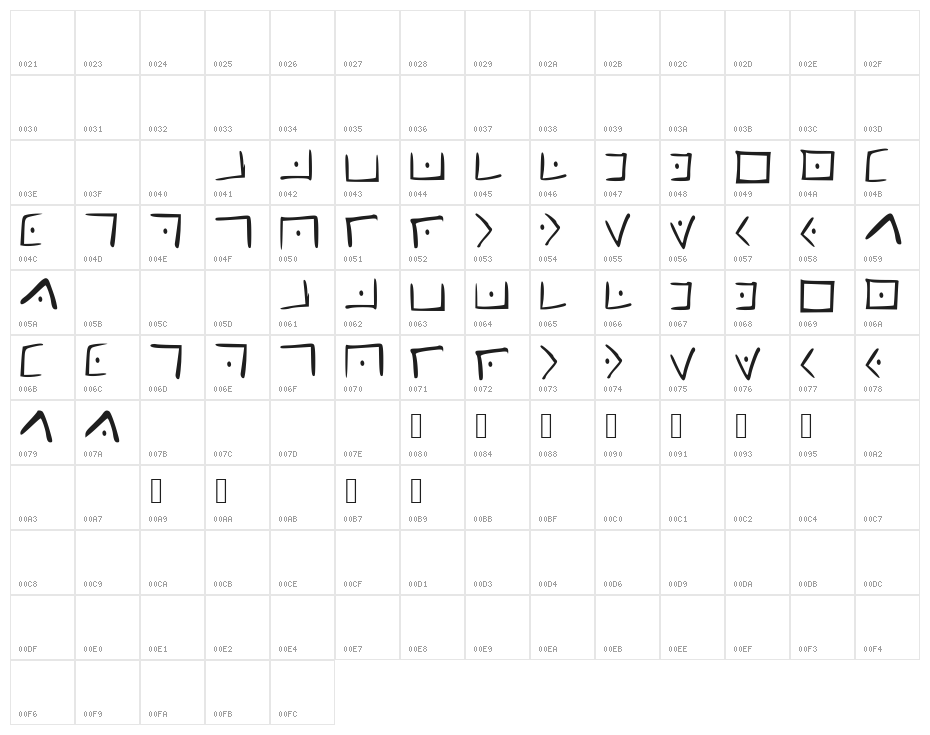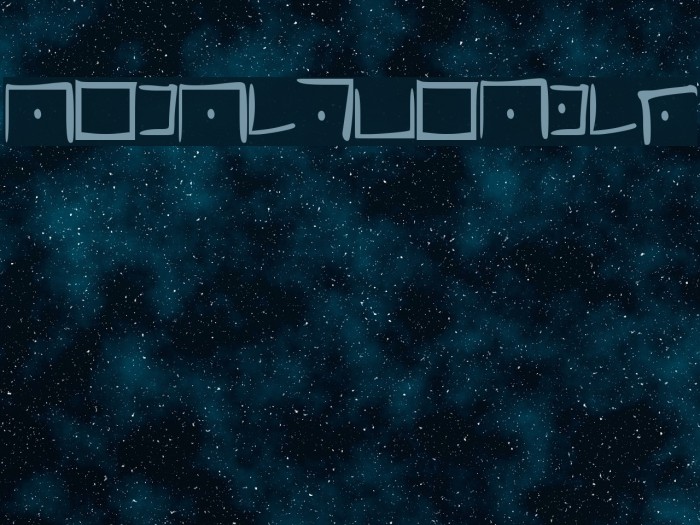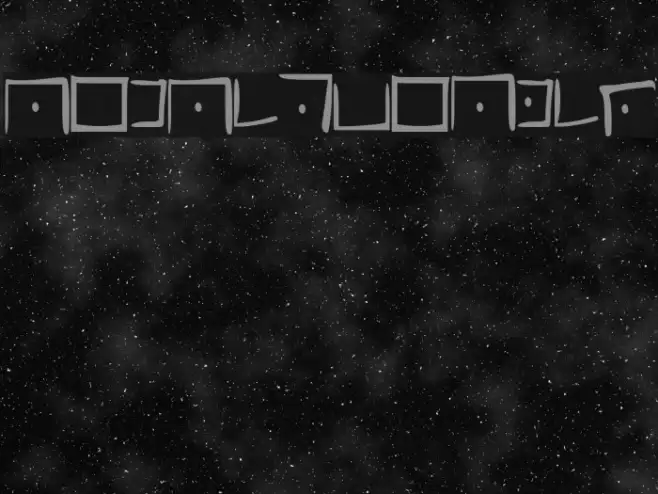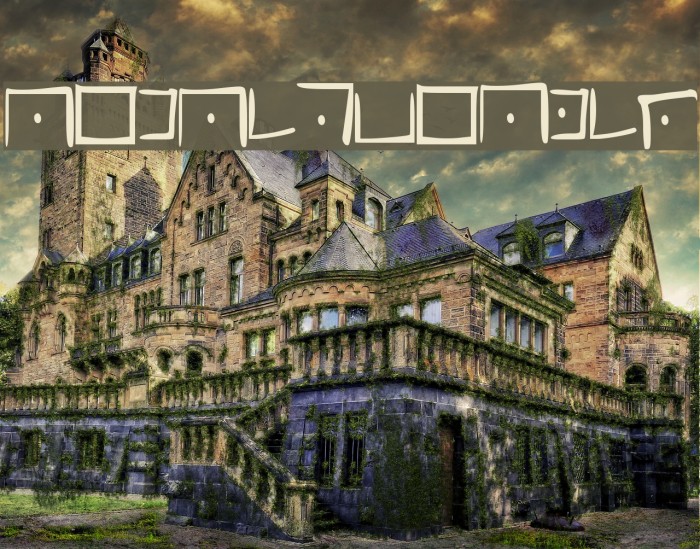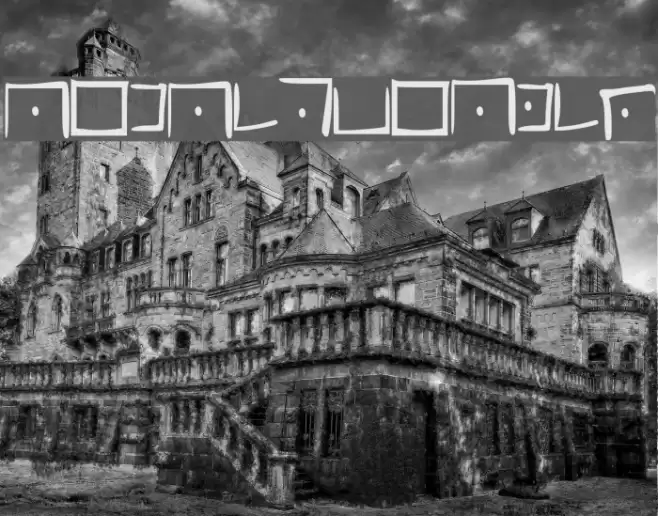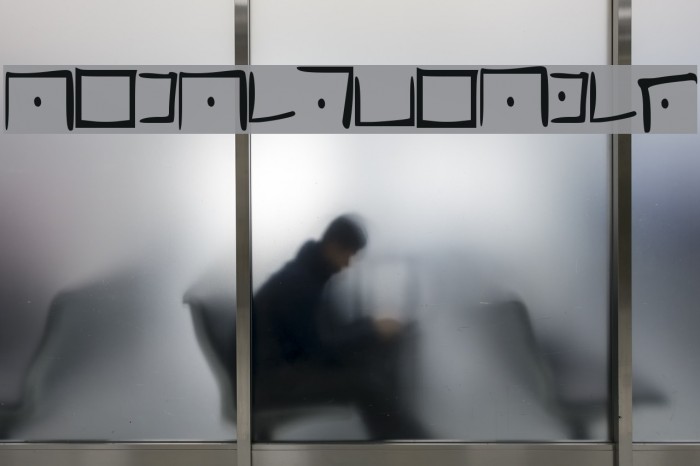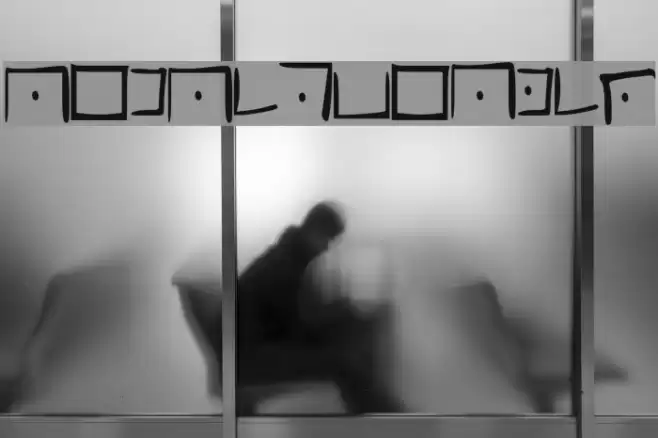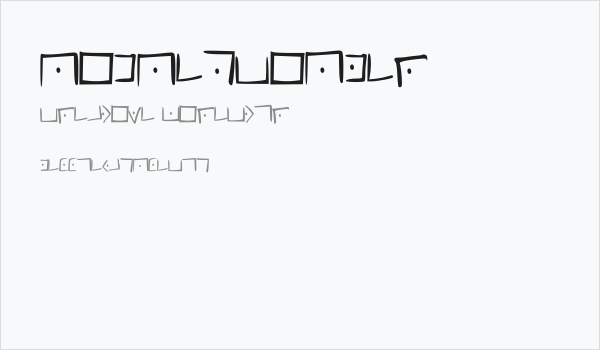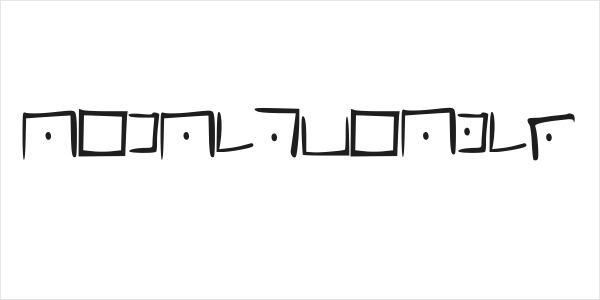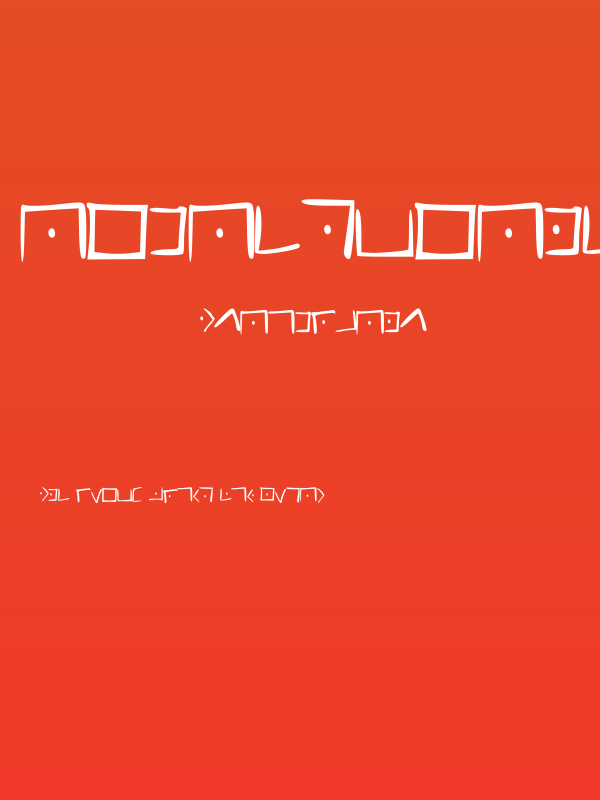
PigPenCipher Font
PigPenCipher Description
This is not a traditional font but a cipher system known as the Pigpen Cipher. It uses a set of symbols to represent letters, based on a grid or tic-tac-toe board and an X. Each letter is represented by a part of the grid or X, with or without a dot. This system is often used for encoding messages in a way that is visually intriguing and cryptic, making it popular for puzzles and secretive communications. The symbols are geometric and abstract, lacking the typical characteristics of a font such as serifs or stroke contrast.
| Use Case | Puzzles, Secret messages, Educational tools |
| Proposed Projects | Ideal for escape room puzzles, cryptography workshops, and educational tools for teaching basic encryption techniques. |